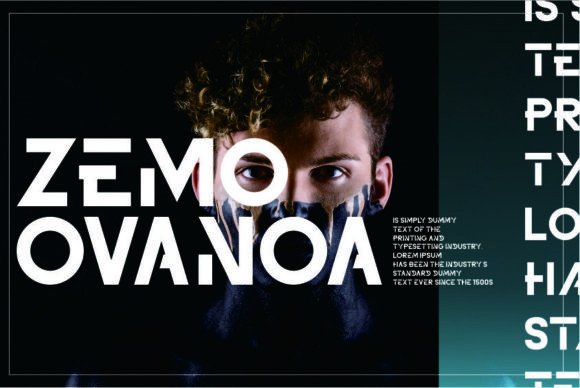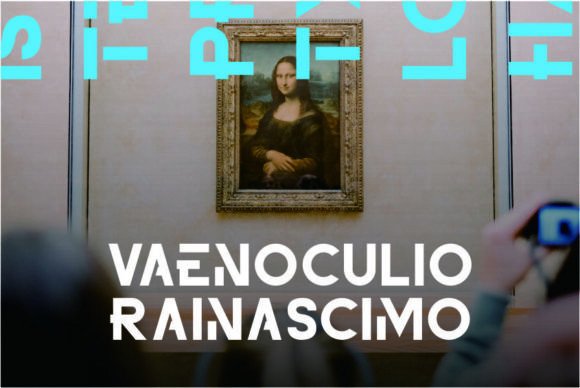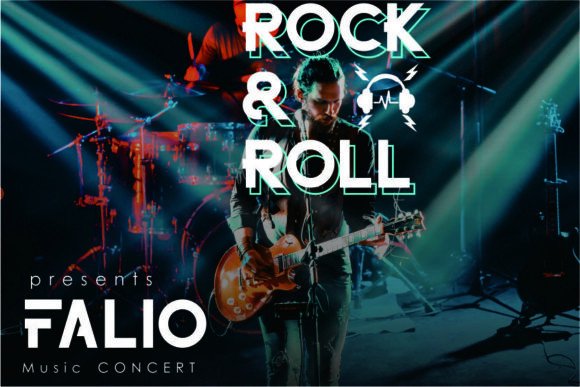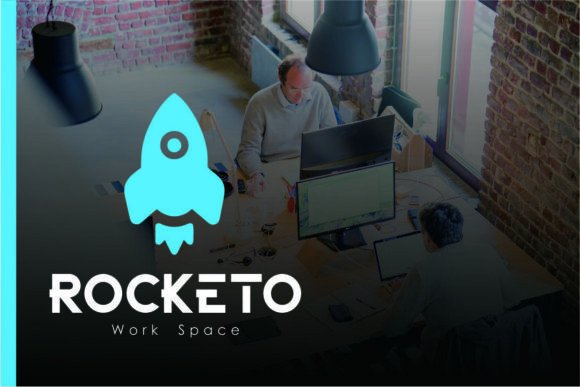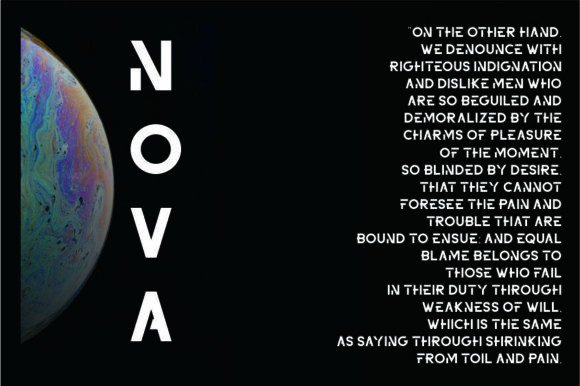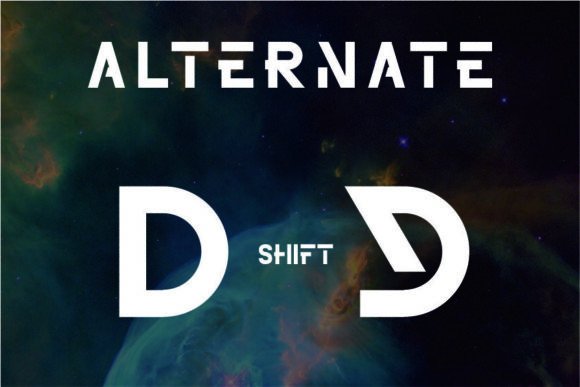
Discover the Uniqueness of Demano Font: Elevate Your Designs to New Heights
Demano is an incredibly unique sans serif font that has been masterfully designed to become a true favorite among designers and crafters. With its exceptional characteristics, this font has the potential to bring each of your creative ideas to the highest level, making it an essential tool for anyone looking to elevate their designs.
The World of Sans Serif Fonts
Sans serif fonts have become a staple in modern design, offering a clean and minimalist aesthetic that can enhance any project. From sleek and sophisticated to bold and playful, sans serif fonts provide a wide range of possibilities for designers. However, finding the perfect font that stands out from the crowd can be a challenge. This is where Demano comes in – a game-changing font that redefines the world of sans serif typography.
What Makes Demano Font So Special?
Demano’s uniqueness lies in its carefully crafted design, which sets it apart from other sans serif fonts. Its sleek lines, precise curves, and balanced proportions create a harmonious visual experience that is both elegant and approachable. Whether you’re working on a branding project, a website, or a crafting endeavor, Demano’s versatility makes it an excellent choice.
Key Features of Demano Font
• Unique Letterforms: Demano boasts distinctive letterforms that are both modern and stylish, making it perfect for headlines, titles, and body text.
• Exceptional Legibility: The font’s clear and precise design ensures excellent legibility, even at smaller font sizes.
• Versatile: Demano’s neutral design makes it suitable for a wide range of applications, from digital media to print materials.
• Easy to Read: The font’s carefully crafted letterforms and spacing ensure a smooth reading experience.
How to Use Demano Font in Your Designs
Demano’s flexibility makes it an excellent choice for various design projects. Here are some ideas to get you started:
Branding and Logo Design
Create a lasting impression with Demano’s bold and modern aesthetic. Use it as a primary font for your logo, or as a complementary font to add a touch of sophistication.
Web Design
Demano’s clean and legible design makes it perfect for web typography. Use it for headings, body text, or even as a UI font for a seamless user experience.
Crafting and DIY Projects
Add a personal touch to your crafting and DIY projects with Demano’s unique style. Use it for titles, labels, or even as a decorative element.
Demano font is an exceptional sans serif font that has the potential to elevate your designs to new heights. Its unique characteristics, versatility, and exceptional legibility make it an essential tool for designers and crafters. Whether you’re working on a branding project, a website, or a crafting endeavor, Demano is sure to become your go-to font. Discover the world of possibilities with Demano font and take your designs to the next level!